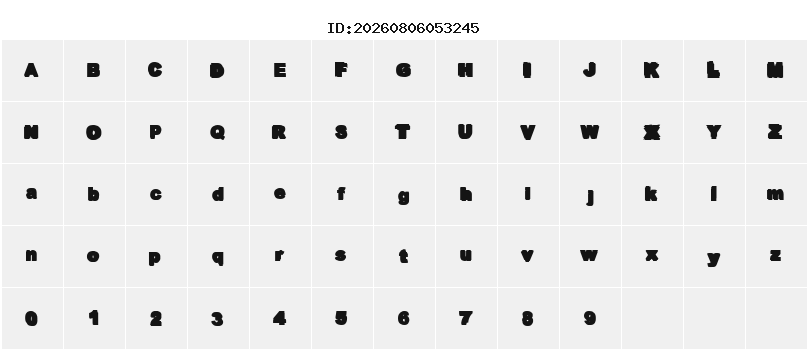
Overprint Black Preview
• Font Name: Overprint Black
• Full Font Name: Overprint Black
About Overprint Black.ttf
Overprint Black.ttf is a modern, elegant sans-serif font designed for ultimate readability and visual harmony. Perfect for branding, headlines, web design, and print materials.